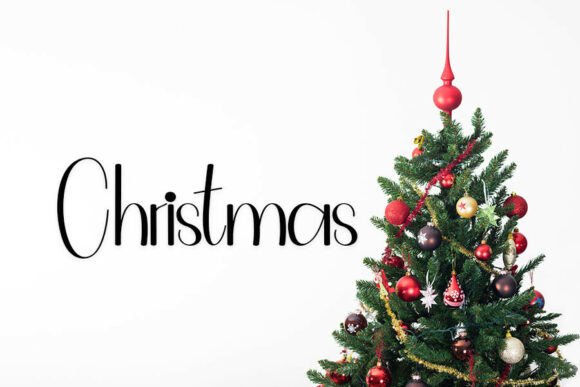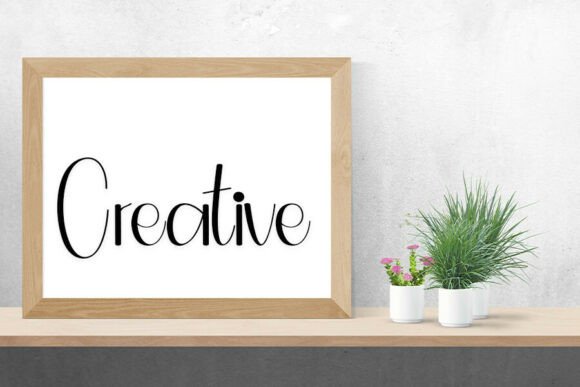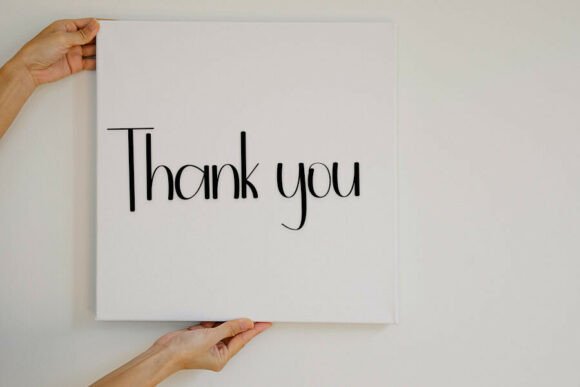
Discovering the Joy of Handwritten Typography
Do you remember the excitement of creating handwritten letters to your friends as a child? The scratch of a pen on paper, the flow of your thoughts onto the page, and the satisfaction of seeing your handwriting come to life. This creative moment is a great starting point for understanding the beauty of the Alphabet Font.
Alphabet Font is a clean and simple handwritten typeface that brings a friendly, personal touch to your designs. Its primary goal is to prioritize legibility while maintaining a relaxed aesthetic, making it perfect for educational materials, personal blogs, and children’s projects. As a designer, you’ll appreciate the versatility of the Alphabet Font, which can be used for both short headings and brief passages of text. Its uniform strokes and clear lines make it a valuable addition to your typography toolkit.
Whether you’re looking to create a modern, lifestyle-oriented look or a cozy, “handmade” atmosphere, the Alphabet Font is a great choice. Pair it with structured geometric sans-serifs or use it in bright, cheerful colors to enhance its welcoming and approachable vibe.
Key Features of Alphabet Font
- Unique Characteristics: Alphabet Font features a clean and modern design, with a focus on legibility and readability. It includes a wide range of weights, from Light to Black, as well as Italic and Oblique styles.
- Language Support: Alphabet Font includes support for multiple languages, including Latin, Cyrillic, and Greek alphabets, making it suitable for use in various international contexts.
Alphabet Font Review
Overall, I think Alphabet Font is a solid choice for those looking for a clean and simple font. It gets the job done, but it’s not particularly memorable or attention-grabbing. ✨ One thing that stands out is its versatility – it works well in both digital and print applications. It’s also highly legible, making it a great option for body text.
- ✨ Highly legible, making it great for body text
- ✨ Versatile and works well in both digital and print applications
- ✨ Clean and simple design that’s easy on the eyes
- ⚠️ May not be the best choice for headings or titles, as it can get lost in a crowded design
- ⚠️ Lacks personality and may not be memorable or attention-grabbing
- ⚠️ May not be the best option for creative or artistic projects, as it’s a bit too straightforward
While Alphabet Font is a solid choice, it’s not particularly exciting or memorable. It’s a great option for those who want a clean and simple font, but it may not be the best choice for those looking for something more unique or attention-grabbing.
Getting the Most Out of Alphabet Font
Use Alphabet Font to add a creative touch to your designs, such as:
– Creating custom titles and headings.
– Designing children’s books and educational materials.
– Adding a playful touch to social media graphics.
Alphabet Font is commonly used for:
– Educational materials, such as alphabet books and worksheets.
– Children’s party invitations and decorations.
– Social media graphics and advertisements targeting children and families.
Alternatives to Alphabet Font for Designers
Great Vibes is a modern, elegant script font suitable for headings and titles. It’s ideal for creating a sophisticated, high-end feel in designs. Great Vibes is more ornate than Alphabet Font, making it better suited for luxury brands or fine art projects.
Carolyna Pro is a stylish, cursive font with a touch of elegance. It’s perfect for creating a sense of luxury, sophistication, and refinement in designs. Compared to Alphabet Font, Carolyna Pro has more intricate details and flourishes, making it more suitable for high-end branding and advertising.